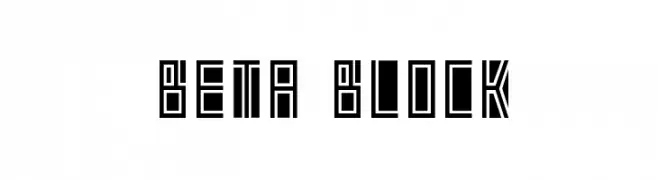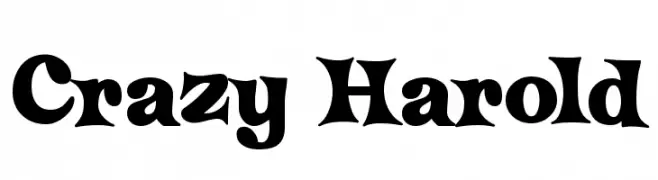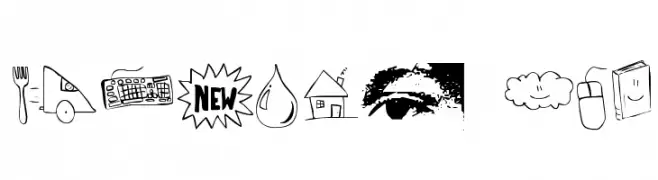
( Fonts by www.matchfonts.com - Michel Bujardet )
A bold, geometric font with a modern and playful style.
( Fonts by Spork Thug Typography - Josh Wilhelm - www.lifewithouttaffy.com/taffy/blog )
A bold, playful font with chunky, irregular shapes and a vintage poster feel.
( Fonts by Divide By Zero! - fonts.tom7.com )
A playful dingbat font with whimsical, hand-drawn illustrations.